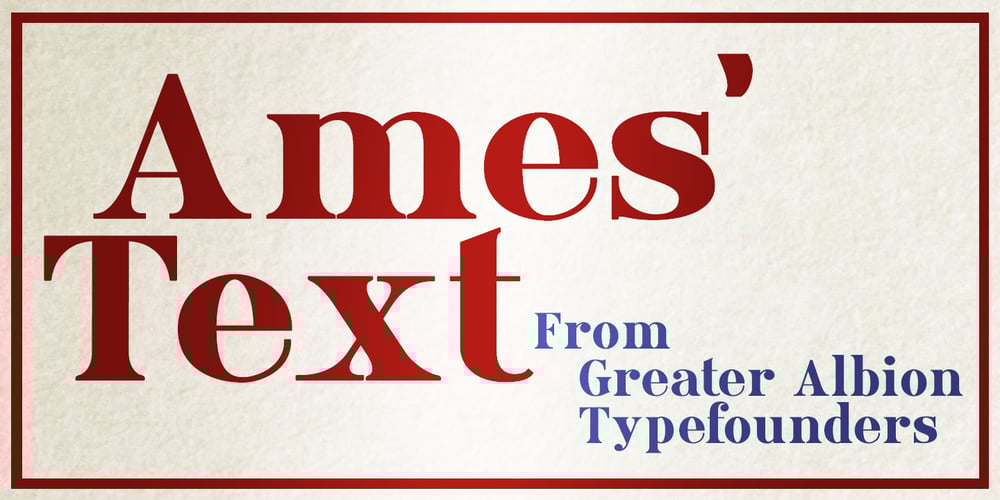
Ames’ Text Font Family was designed by Paul James Lloyd and published by Greater Albion Typefounders. Ames’ Text contains 9 styles and family package options. Ames’ text is designed for use in its own right and also as a complement to our Ames’ Roman family. Ames’ text is a ‘New-Style’ Didone family offered in three weights and three widths. It is designed to embody clarity combined with contrast between horizontal and vertical strokes, but with sufficient stroke width in both directions to display well at small point sizes. All typefaces include small capital forms, new and old style numerals (and ‘small capital’ numerals for consistency). Ames’ text is distinctive enough for use in headings and titles, but comes into it own as a text face. Keep a lookout for our forthcoming Ames Display faces…